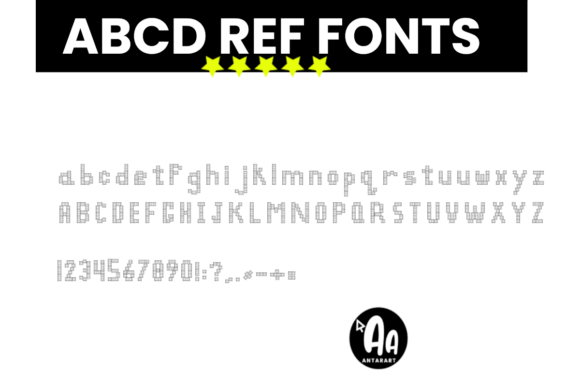
Make Learning Fun with the Playful Building Blocks Font
Are you a teacher, designer, or crafter looking for a fun and engaging way to make learning materials more exciting? Look no further than the Building Blocks Font! This playful font is perfect for classroom decor, worksheets, bulletin boards, and more, and is sure to bring a smile to the faces of students of all ages.
What is the Building Blocks Font?
The Building Blocks Font is a unique and creative font that features block-like letters and numbers, reminiscent of children’s building blocks. The font is designed to be highly legible and easy to read, making it perfect for use in educational materials, such as worksheets, posters, and classroom decor.
Features of the Building Blocks Font
• Playful and Fun Design: The Building Blocks Font features a playful and fun design that is sure to capture the attention of students and make learning more enjoyable.
• Highly Legible: The font is designed to be highly legible, making it easy to read and understand, even for young students.
• Block-like Letters and Numbers: The font features block-like letters and numbers, reminiscent of children’s building blocks, adding a touch of whimsy and fun to any learning material.
• Perfect for Classroom Decor: The Building Blocks Font is perfect for use in classroom decor, such as bulletin boards, posters, and charts.
• Versatile: The font can be used in a variety of educational materials, including worksheets, handouts, and presentations.
Ideas for Using the Building Blocks Font
The Building Blocks Font is a versatile font that can be used in a variety of ways to make learning more fun and engaging. Here are a few ideas to get you started:
• Classroom Decor: Use the Building Blocks Font to create fun and engaging classroom decor, such as bulletin boards, posters, and charts.
• Worksheets and Handouts: Add a touch of whimsy to worksheets and handouts with the Building Blocks Font, making learning more enjoyable for students.
• Bulletin Boards: Create eye-catching bulletin boards with the Building Blocks Font, featuring important dates, events, and announcements.
• Presentations: Use the Building Blocks Font in presentations to make learning more engaging and fun for students.
• DIY Projects: Use the Building Blocks Font in DIY projects, such as creating custom labels, signs, and charts.
Tips for Using the Building Blocks Font
Here are a few tips for using the Building Blocks Font:
• Use a Bright and Bold Color Scheme: Use a bright and bold color scheme to make the font stand out and grab attention.
• Experiment with Different Font Sizes: Experiment with different font sizes to create visual interest and add emphasis to important information.
• Combine with Other Fonts: Combine the Building Blocks Font with other fonts to create a unique and visually appealing design.
• Use in Conjunction with Images: Use the Building Blocks Font in conjunction with images to create a fun and engaging design.
Font Name Building Blocks Font
Author AntarArt
The Building Blocks Font is a fun and engaging font that is perfect for making learning more enjoyable for students of all ages. With its playful design, high legibility, and versatility, this font is sure to become a favorite among teachers, designers, and crafters. So why not give it a try and see how you can use the Building Blocks Font to make learning more fun and engaging?
Get Creative with the Building Blocks Font!
Whether you’re a teacher, designer, or crafter, the Building Blocks Font is a great way to add a touch of whimsy and fun to your educational materials. So get creative and have fun with the Building Blocks Font!